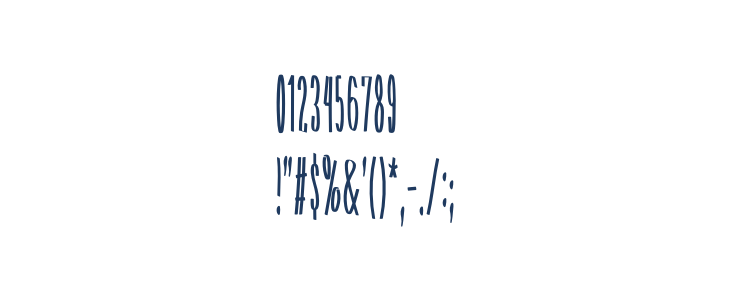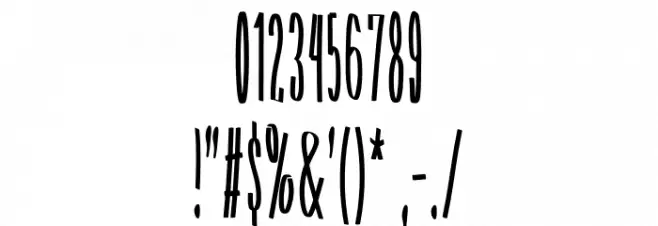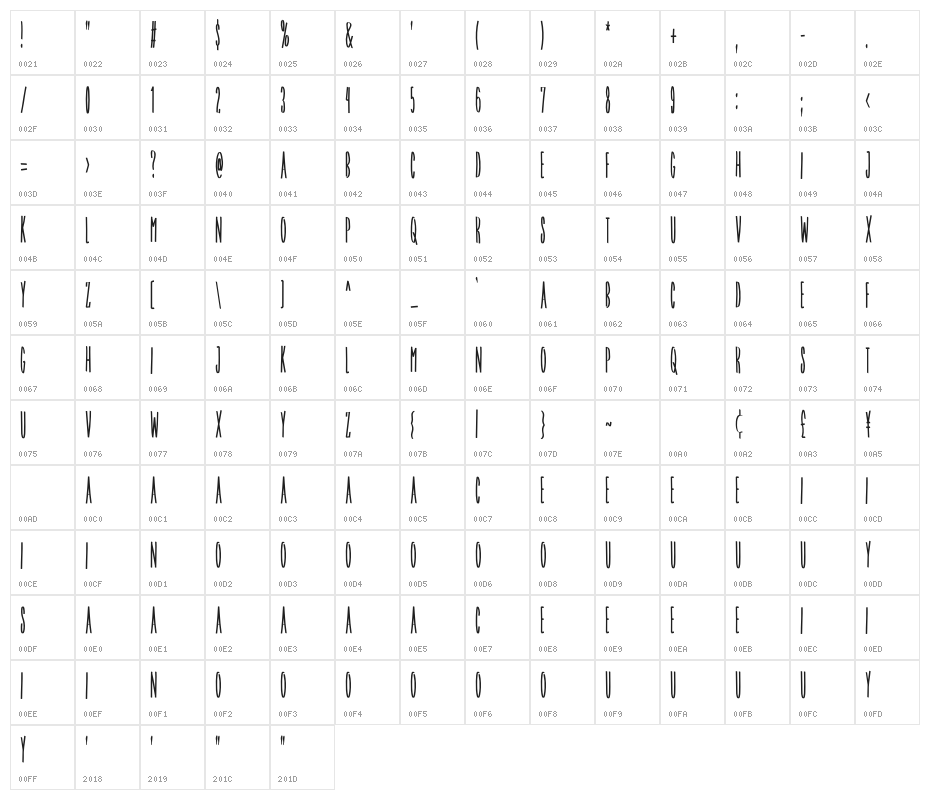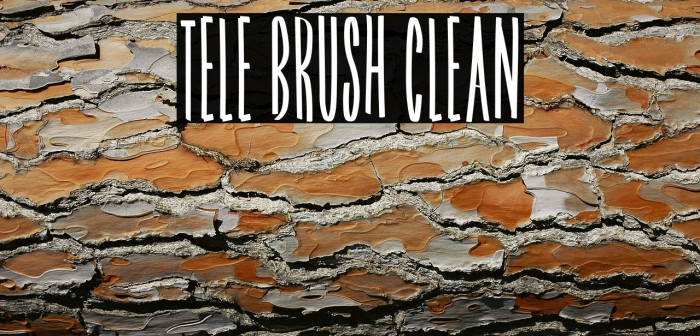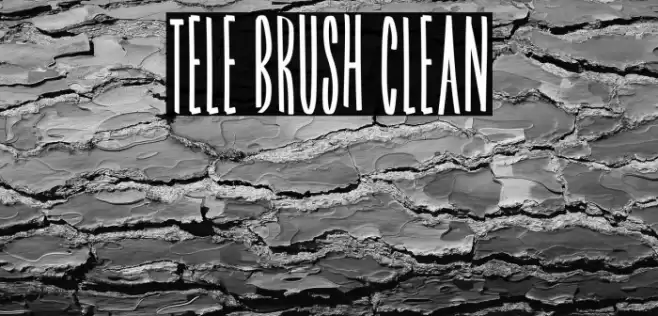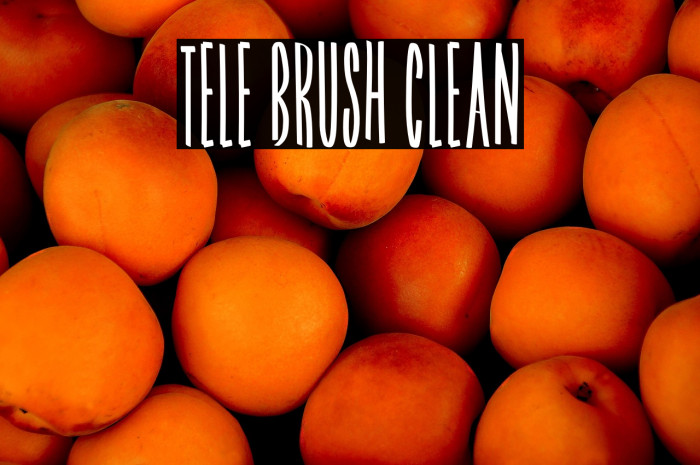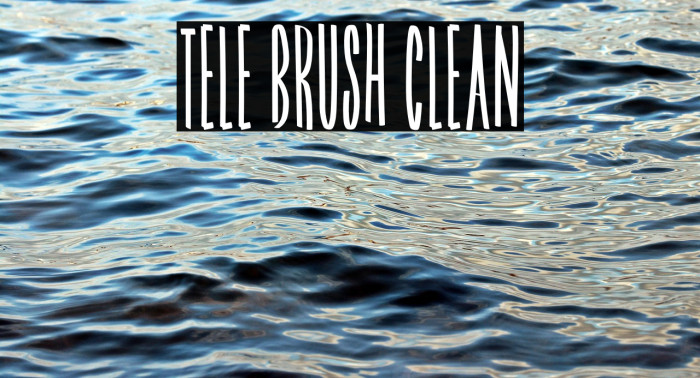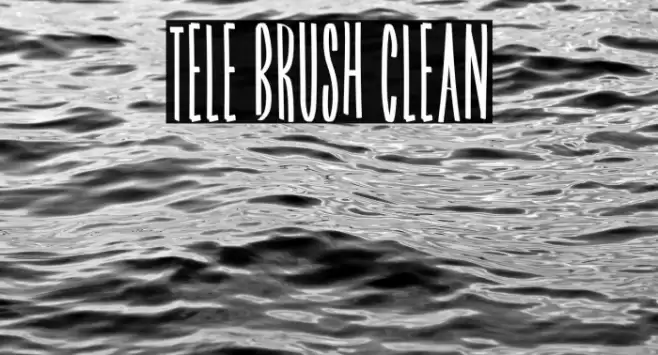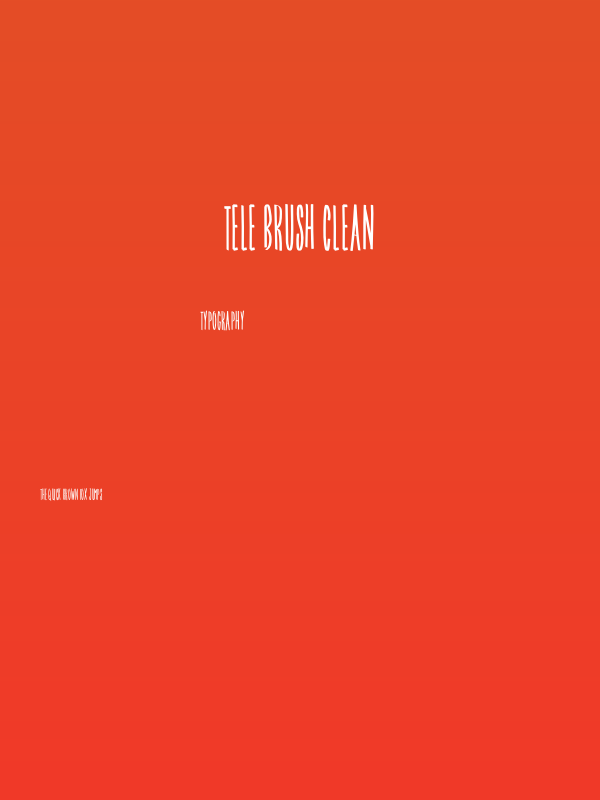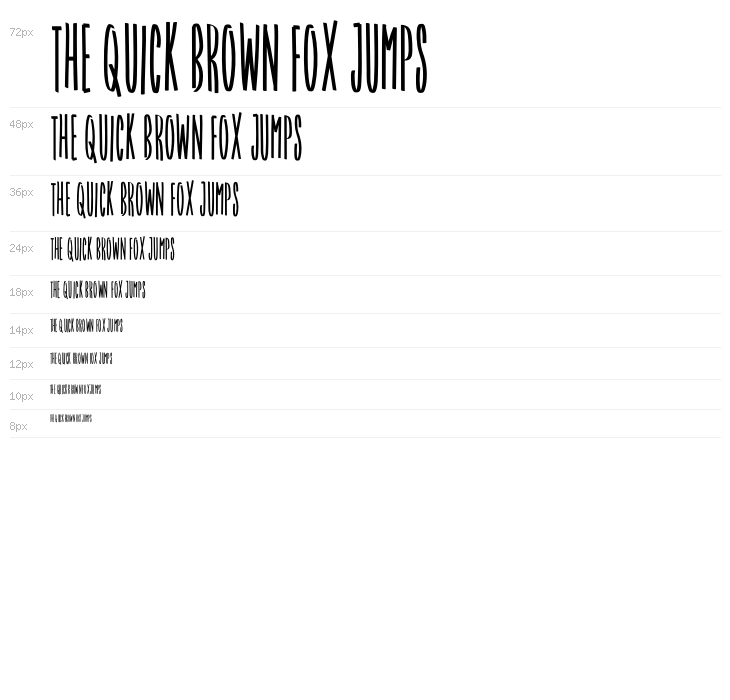
Tele Brush Clean Font
Tele Brush Clean Description
This font features a tall, narrow design with a hand-drawn, brush-like appearance. The strokes are uneven, giving it a casual and artistic feel. The uppercase letters are elongated, while the lowercase letters maintain a consistent height, creating a harmonious balance. The numbers and special characters follow the same style, ensuring uniformity across all elements. This font's unique style makes it stand out, offering a playful yet sophisticated look suitable for various creative projects.
| Overall Style | Artistic, Playful |
| Proposed Projects | Ideal for posters, artistic branding, creative invitations, and social media graphics. |